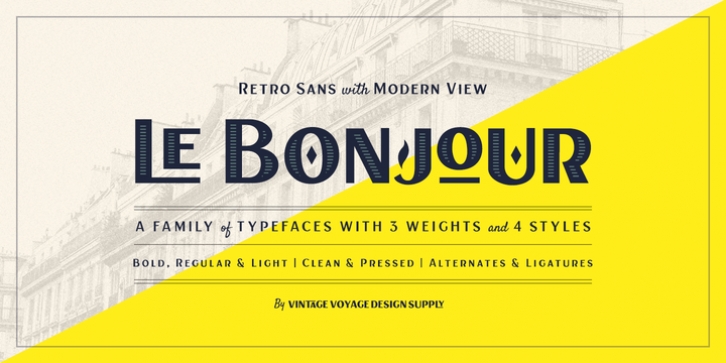
Classic retro sans with some modern looks. Contrast vertical and horizontal lines in Bold style and elegant and airy Light style. This font has no lowercase letters, only the small caps which makes it very suitable for Headers, Logotypes, sub-headers, etc. This family has a French mid-century spirit with the alternate underlined O, inherent in that time, ligatures for L-pairs and T-pairs letters and some decorative alternates for A, C, H, J, O, Q, and U letters.